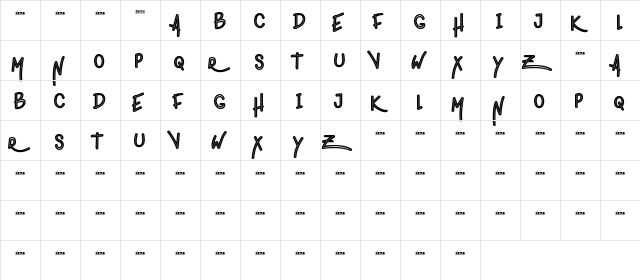
ligera rouden Decorative Font Preview
ligera rouden Decorative
ligera rouden Decorative Font Details
| Style | Decorative |
| Foundry | LJ Design Studios |
| Designer | Luis Jaramillo |
Design Context for ligera rouden Typeface
ligera rouden is built around its visual character rather than neutral utility — its distinctive forms are designed to make an impression at display sizes.
Font Pairing: Pair with a clean neutral sans-serif for body copy to let ligera rouden's character lead without overwhelming the composition.
Pro Tip: Treat ligera rouden as the centrepiece of your typographic hierarchy. One strong heading set in a decorative face can carry an entire layout.